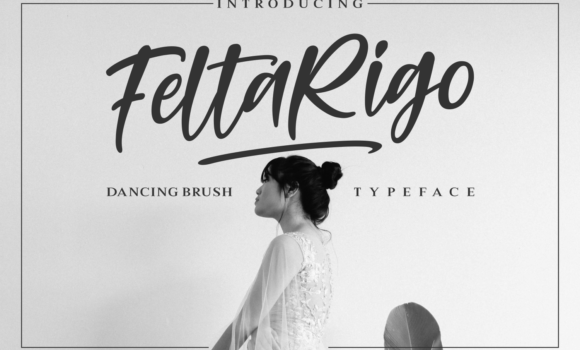
feltarigo
Feltarigo Font – Free Download Introduction to Feltarigo Font Feltarigo is a dancing brush script. 📸 Preview Gallery 5 images 📌 Product Name Feltarigo Font 👤 Author Keithzo (7NTypes) 📂 Category Explore ⬇️ Download Feltarigo Font FREE Free Download •